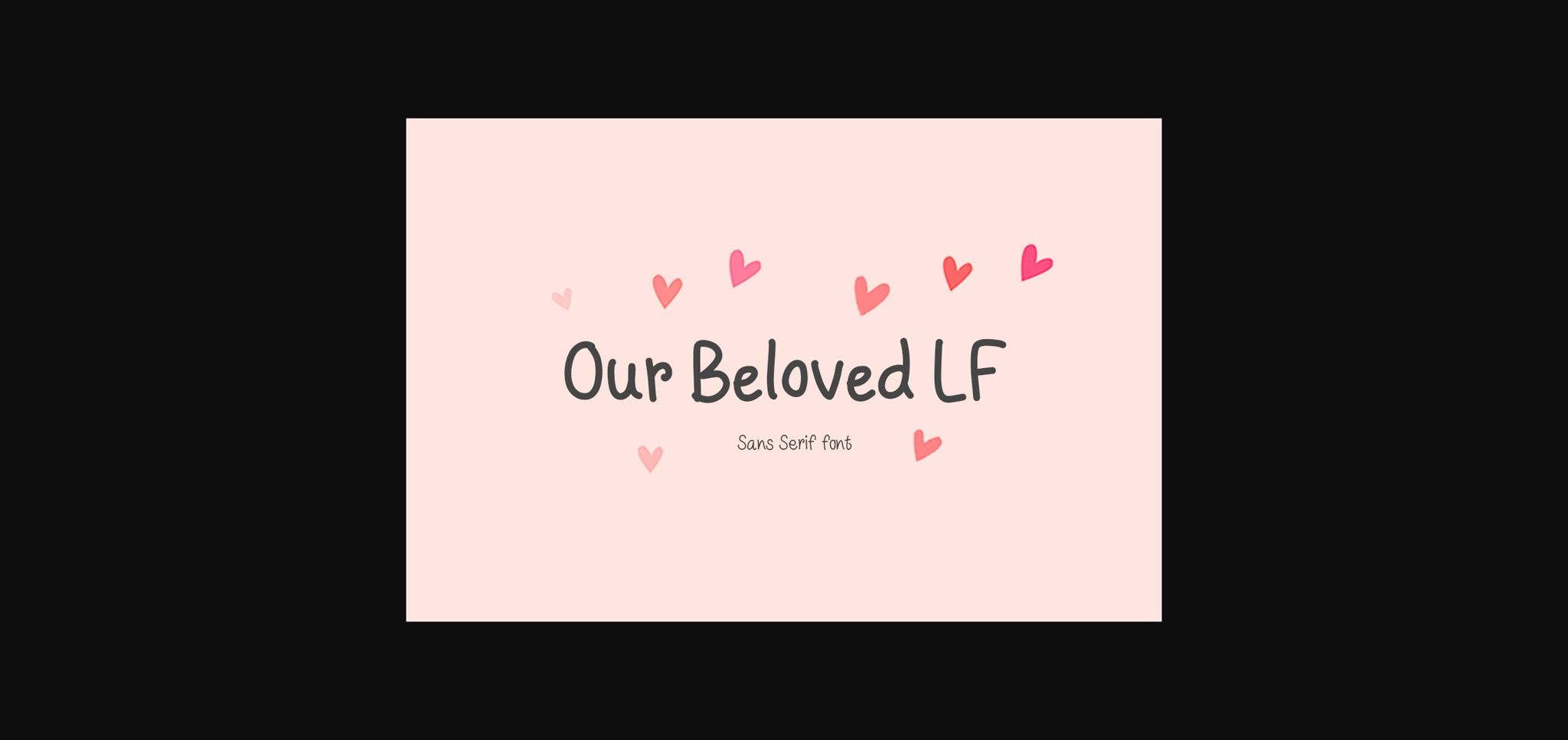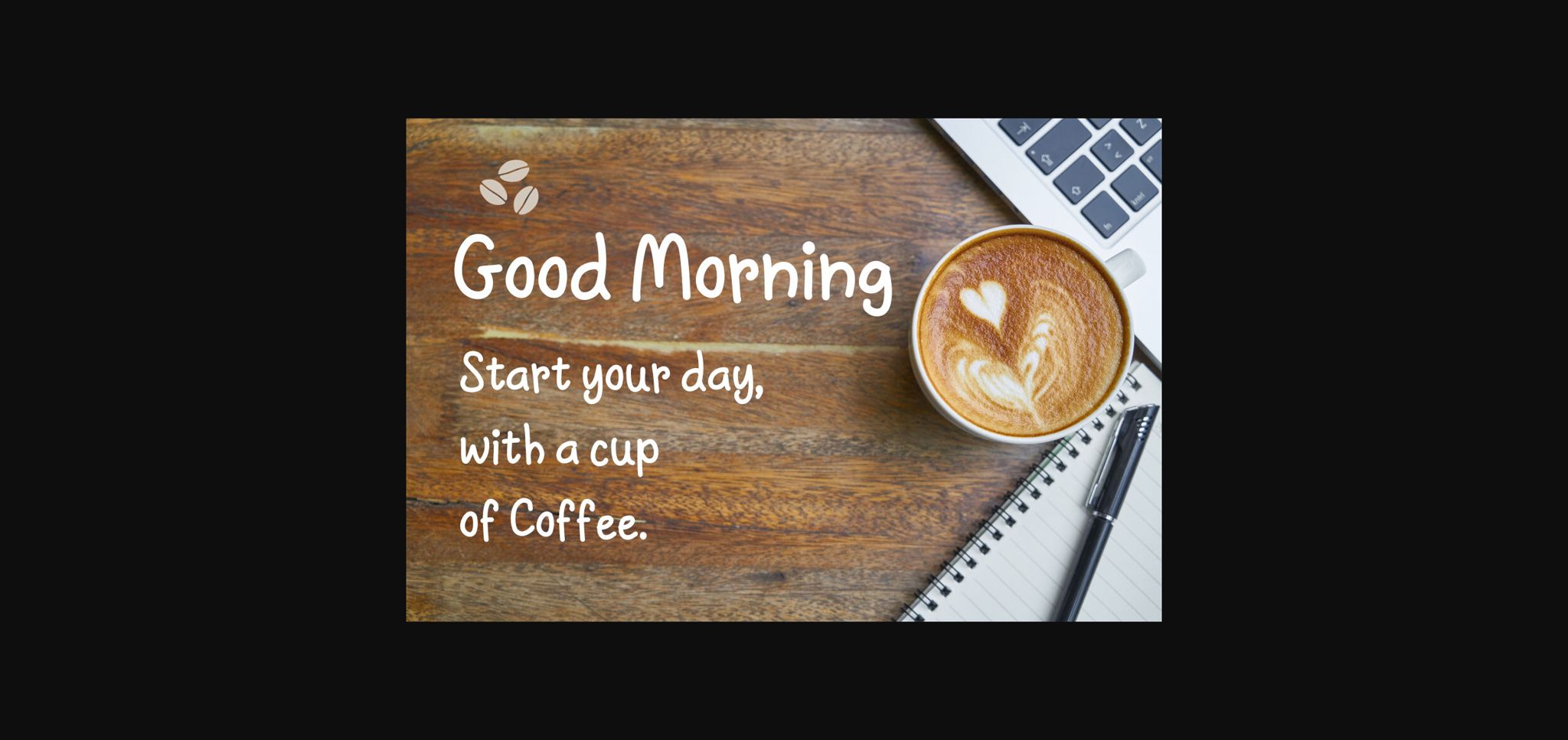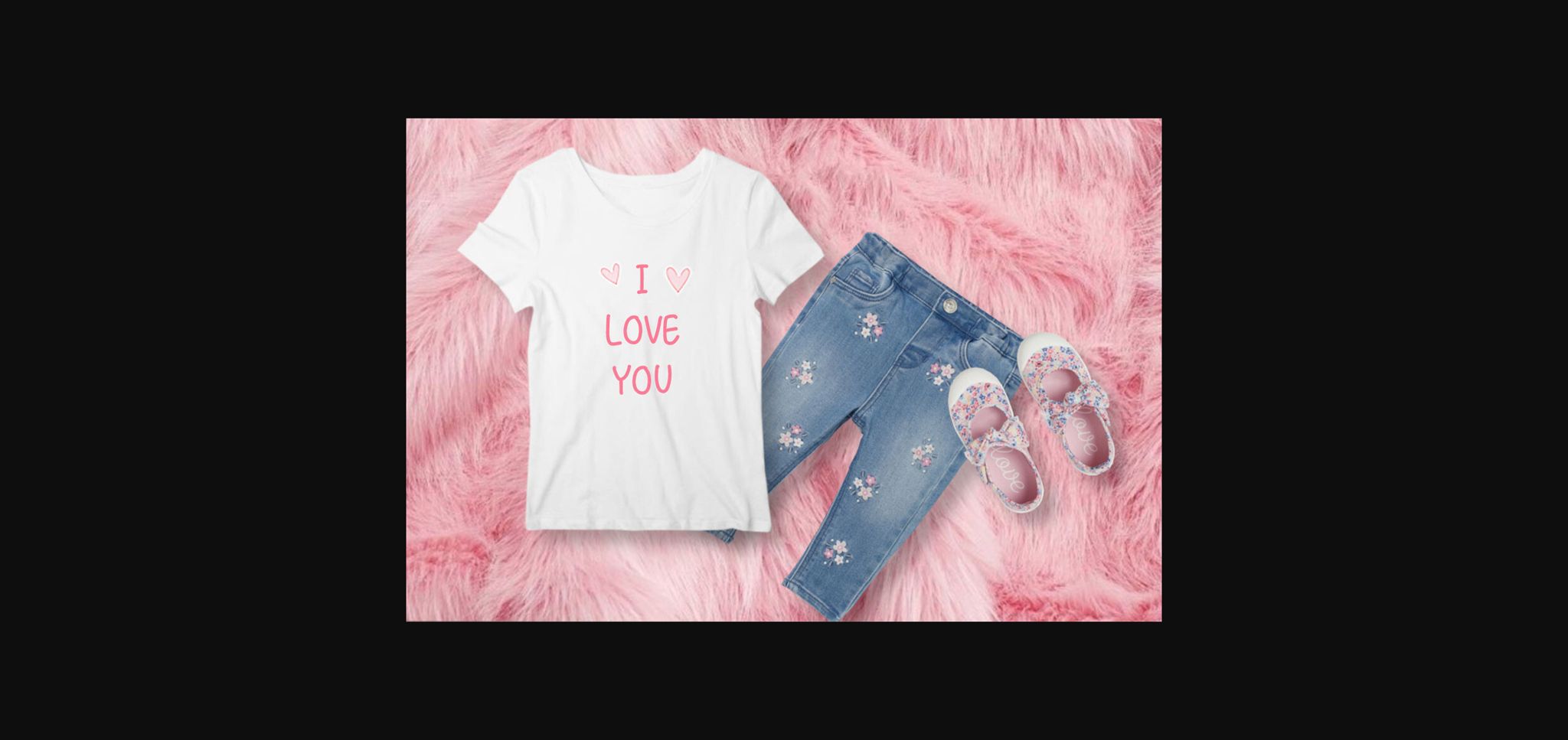
About Our Beloved Lf Font
Our Beloved LF is a minimal, cute and Good mood sans serif font style. It would be awesome to your fun projects or diary planner, children themed designs, on wedding invitations, valentine cards, thank you cards, quotes, greeting cards, logos, business cards and other designs.